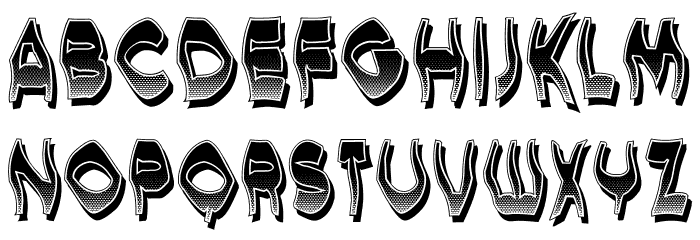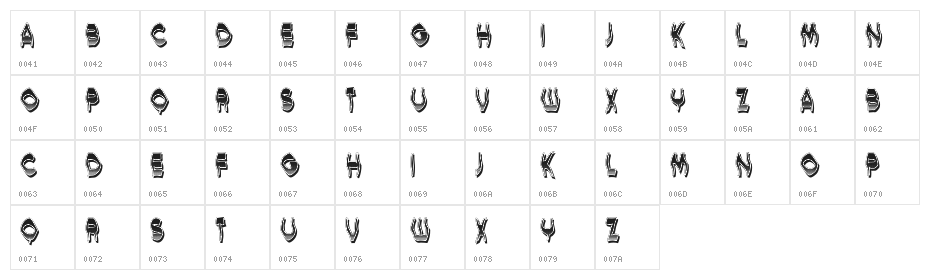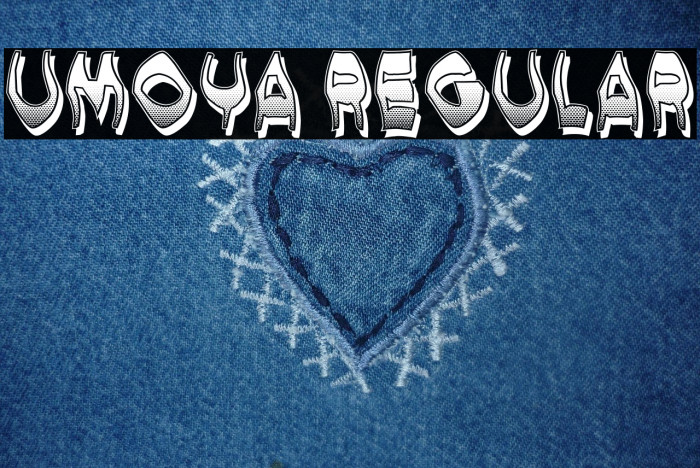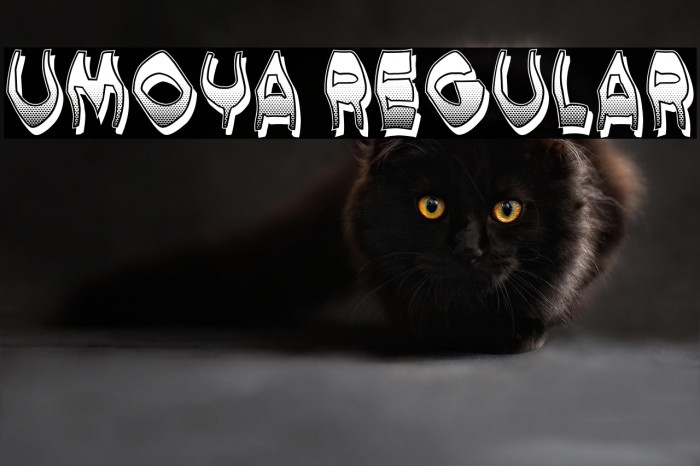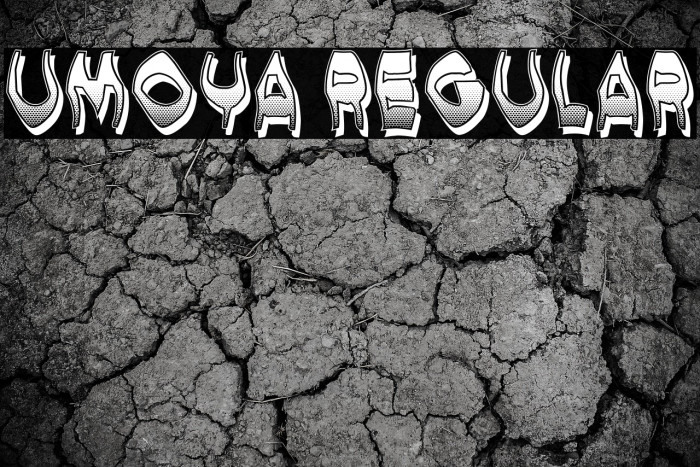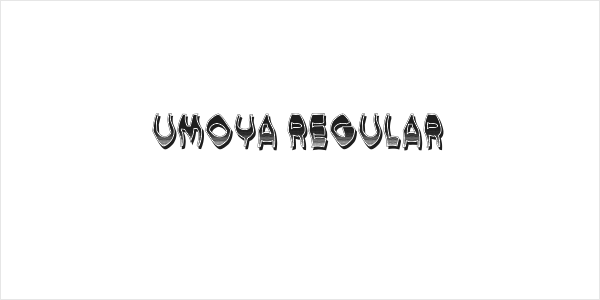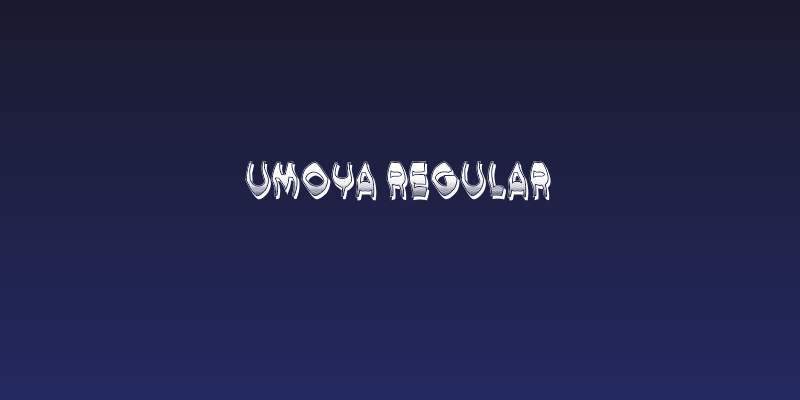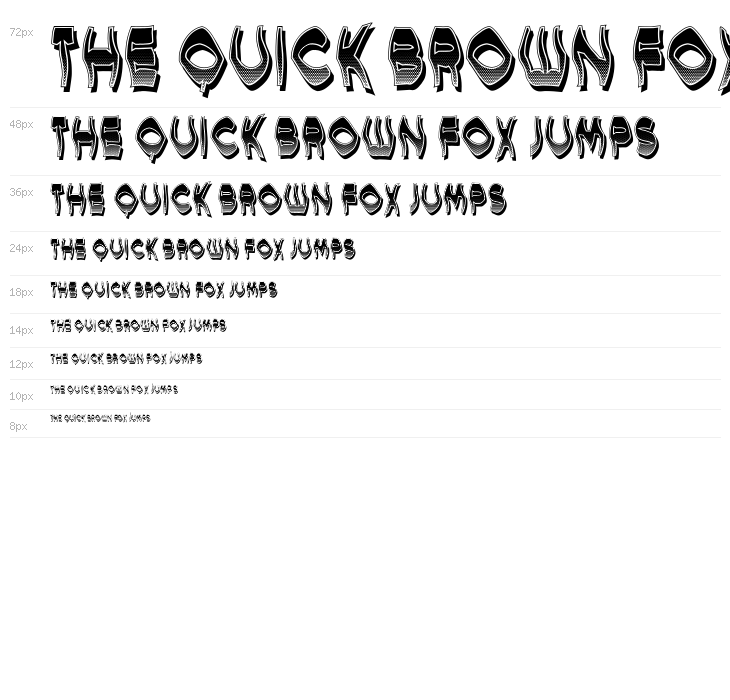
Umoya Regular Font
This font features a bold and dynamic style with a three-dimensional effect, characterized by thick strokes and a shadowed appearance. The letters are designed with a playful, comic-like aesthetic, incorporating a dotted texture within the shadowed areas that adds depth and visual interest. The uppercase letters have a strong presence, making them ideal for attention-grabbing designs. The overall look is both modern and retro, reminiscent of vintage comic book lettering. Its unique style makes it suitable for creative projects that require a touch of whimsy and boldness.
A bold, comic-inspired font with a three-dimensional, shadowed effect.
- Font: Umoya Regular
- Proposed Projects: Ideal for comic books, posters, logos, and any design needing a playful, bold touch.
- Overall Style: Modern, Vintage